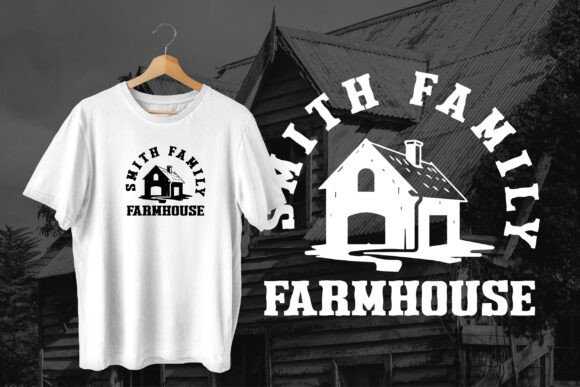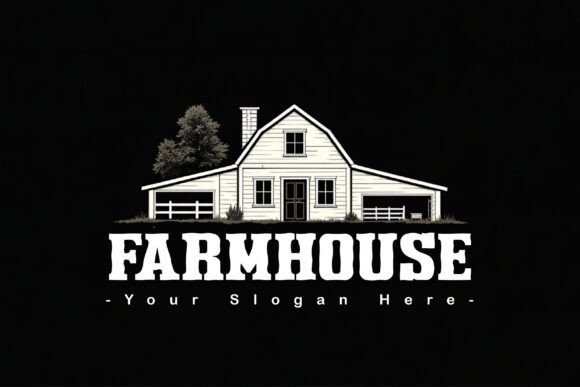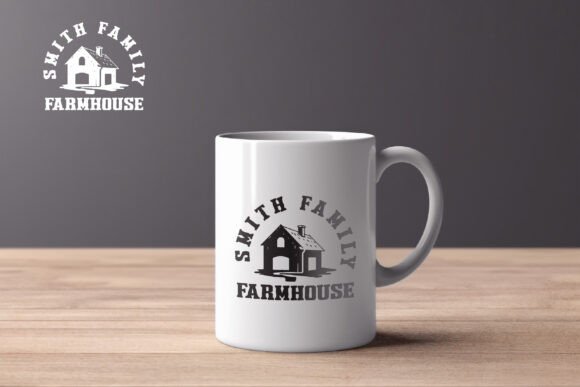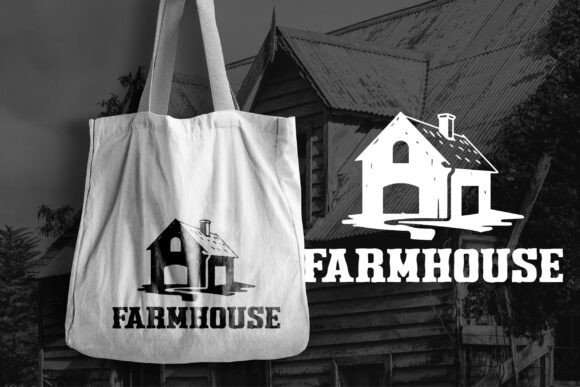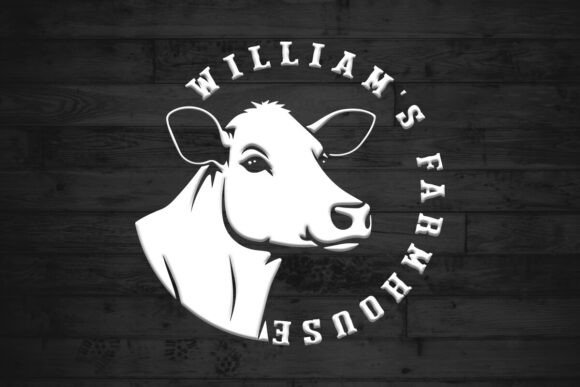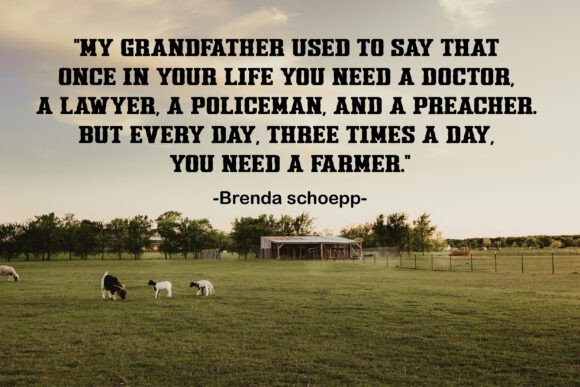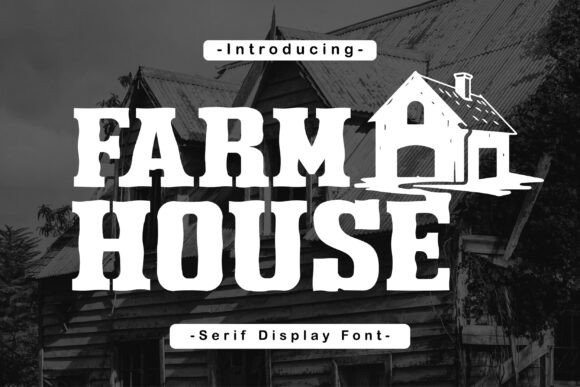
Experience the Rustic Charm of the Farmhouse Serif Font
In the world of typography, fonts play a crucial role in conveying the tone and aesthetic of a design. For designers and crafters looking to add a touch of rustic charm to their projects, the Farmhouse Serif Font is an excellent choice. This display font captures the essence of pastoral beauty, making it ideal for designing farm logos, inspiring quotes, statement t-shirts, and customised bags.
The Allure of Farmhouse Serif Font
The Farmhouse Serif Font boasts a unique blend of classic and rustic elements, making it a compelling addition to any design. Its serif details evoke a sense of tradition and timelessness, while its bold and sturdy appearance conveys a sense of ruggedness and durability. This font is perfect for designers who want to create a sense of nostalgia and warmth in their designs.
Design Applications for Farmhouse Serif Font
The Farmhouse Serif Font is incredibly versatile and can be used in a variety of design applications. Here are a few ideas to get you started:
- Farm Logos: The Farmhouse Serif Font is an excellent choice for designing farm logos, as it evokes a sense of rustic charm and pastoral beauty. Use it to create a logo that reflects the values and aesthetic of your farm or agricultural business.
- Inspiring Quotes: Add a touch of rustic elegance to your inspiring quotes with the Farmhouse Serif Font. This font is perfect for creating motivational posters, social media graphics, and other visual content that requires a bold and eye-catching font.
- Statement T-Shirts: Take your t-shirt designs to the next level with the Farmhouse Serif Font. This font is perfect for creating bold and eye-catching designs that will make a statement.
- Customised Bags: Add a personal touch to your customised bags with the Farmhouse Serif Font. This font is perfect for creating unique and stylish designs that will make your bags stand out.
Benefits of Using Farmhouse Serif Font
The Farmhouse Serif Font offers a range of benefits for designers and crafters, including:
- Unique Aesthetic: The Farmhouse Serif Font boasts a unique blend of classic and rustic elements, making it a compelling addition to any design.
- Versatility: This font is incredibly versatile and can be used in a variety of design applications, from farm logos to inspiring quotes.
Tips for Using Farmhouse Serif Font
| Font Name | Farmhouse Serif Font |
| Author | Patlot Digital.Studio |
The Farmhouse Serif Font is a versatile and stylish font that is perfect for designers and crafters looking to add a touch of rustic charm to their projects. With its unique blend of classic and rustic elements, this font is ideal for designing farm logos, inspiring quotes, statement t-shirts, and customised bags. Whether you’re a seasoned designer or just starting out, the Farmhouse Serif Font is an excellent choice for taking your creative designs to a new level of aesthetic intrigue.